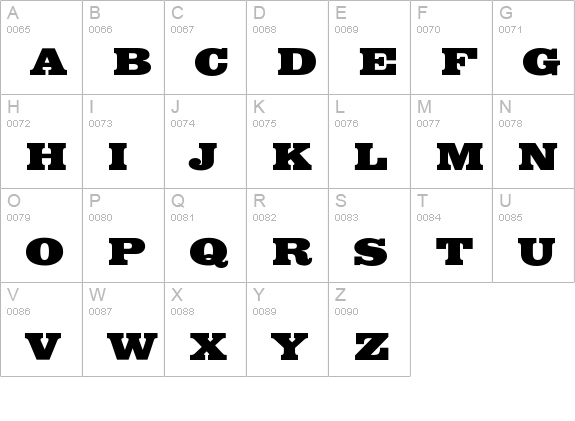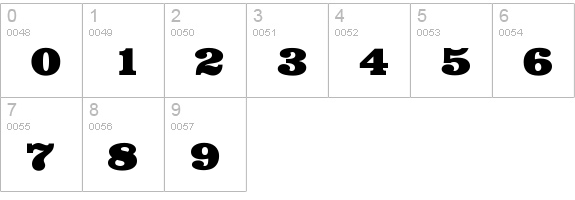
Dynasty Black Ext. Font Details
Dynasty Black Ext. is a maximum-weight, dramatic variant in the Dynasty typeface family \xE2\x80\x94 well suited to maximum-impact headlines, posters, and packaging.
Introducing Dynasty Black Ext., a bold and elegant font that exudes sophistication and power. With its sleek and modern design, Dynasty Black Ext. is perfect for making a statement in your designs. Its extended characters add a unique flair, making it ideal for headlines, logos, and branding projects. What makes Dynasty Black Ext. even more enticing is that it is available for free download at FontsMarket.com. That's right, you can elevate your projects with this striking font without spending a penny. Don't miss out on this opportunity to enhance your designs with Dynasty Black Ext. and leave a lasting impression on your audience. Download it now and let your creativity shine!